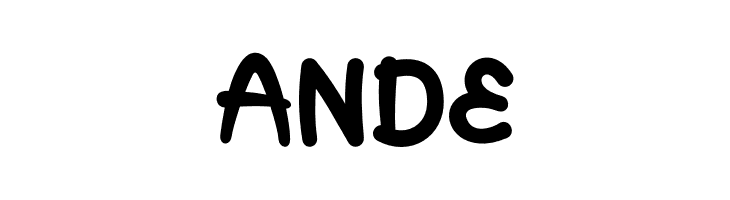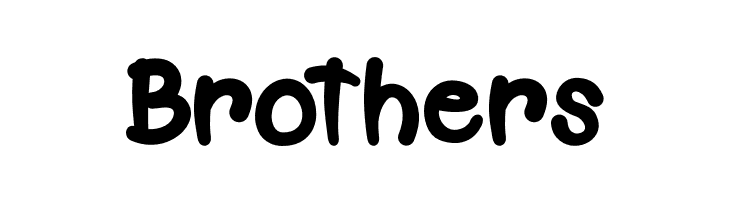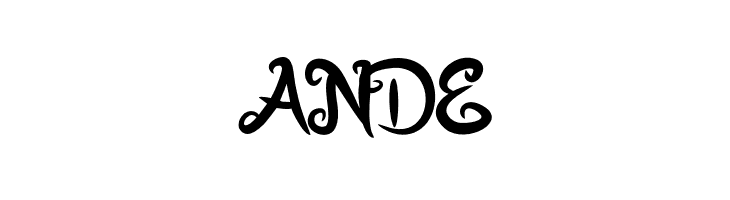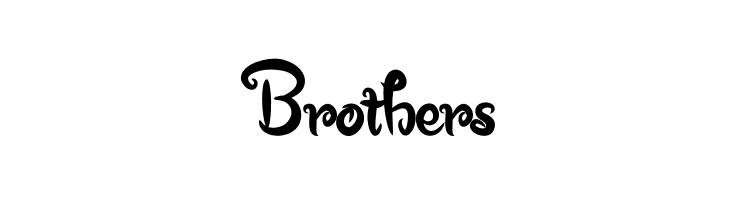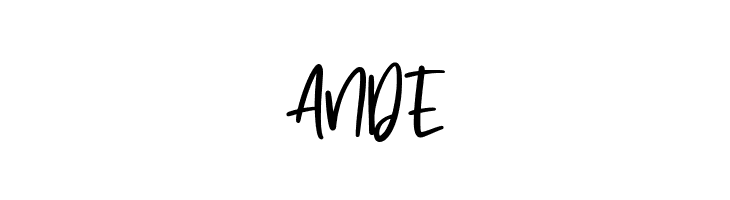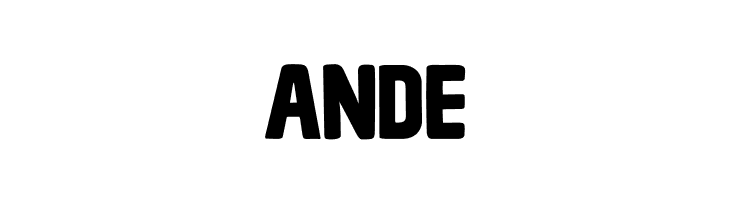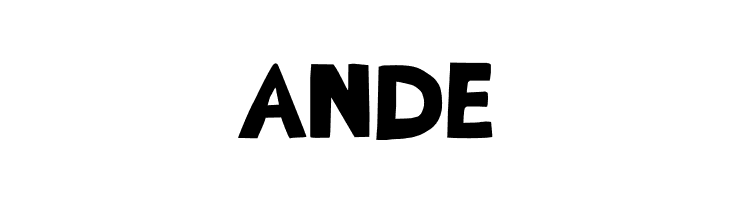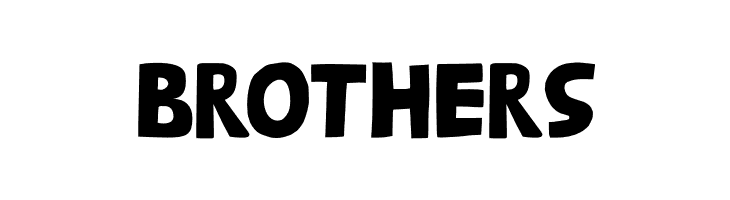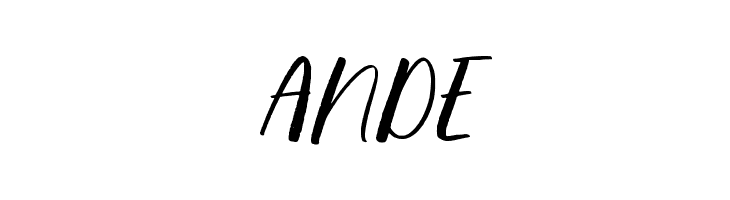
A bold, rounded font with a playful, retro aesthetic.
A bold, hand-drawn font with a rugged and organic style.
A bold, playful font with rounded edges and a modern aesthetic.
A playful, rounded font with a hand-drawn appearance, perfect for casual and informal projects.
A playful, handwritten font with bold, rounded strokes and a casual, energetic feel.
A bold, playful font with rounded strokes and a friendly appearance.
A quirky, hand-drawn font with a playful and whimsical style.
A lively, expressive handwritten font with fluid strokes and bold characters.
Bold, graffiti-style handwritten font with energetic, irregular forms.
A bold, high-contrast serif font with a classic and authoritative style.
A bold, textured font with a rugged, organic appearance.
A bold, textured font with a rugged, distressed style.
A flowing, elegant script font with calligraphic flourishes.
A playful, hand-drawn font with bold, rounded characters and a whimsical style.
A modern, thin sans-serif font with a clean and minimalist design.
A bold, modern sans-serif font with geometric lines and strong visual impact.
A modern, thin sans-serif font with clean lines and a minimalist design.
An elegant script font with flowing, calligraphic style and ornate flourishes.
A bold, playful font with a hand-drawn, energetic style.
A tall, narrow font with clean lines and a modern, elegant style.
A tall, narrow font with clean lines and a modern, minimalist style.
A bold, expressive brush-style font with dynamic, textured strokes.
A modern, clean sans-serif font with consistent stroke width and minimalistic elegance.
A flowing, cursive script font with elegant loops and natural handwriting style.
A bold, handwritten font with dynamic strokes and a modern, artistic flair.
A playful, bold font with rounded characters and a whimsical, hand-drawn style.
A lively handwritten font with fluid, dynamic strokes and a casual style.
Bold cursive script with elegant flow.
A dynamic, handwritten-style font with fluid strokes and a modern, artistic flair.
A modern and elegant font with clean lines and a sophisticated look.
A whimsical and playful font with curly, flowing letterforms.
A bold, distressed font with a vintage, rugged texture.